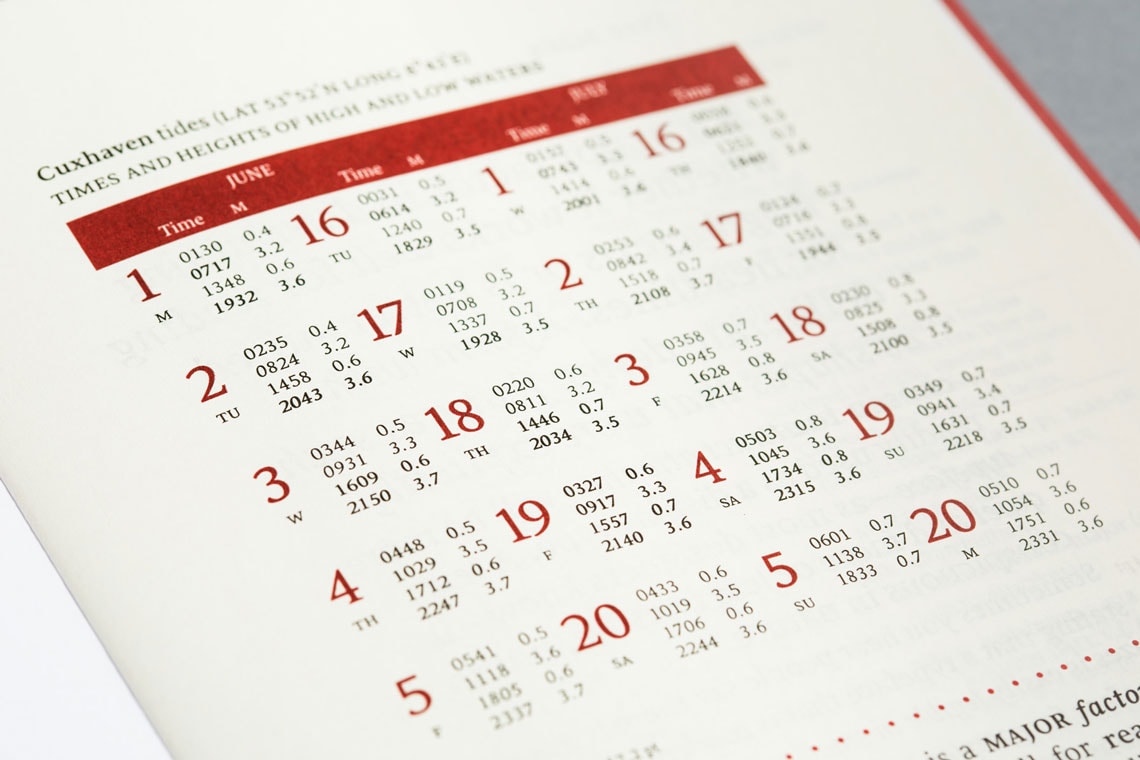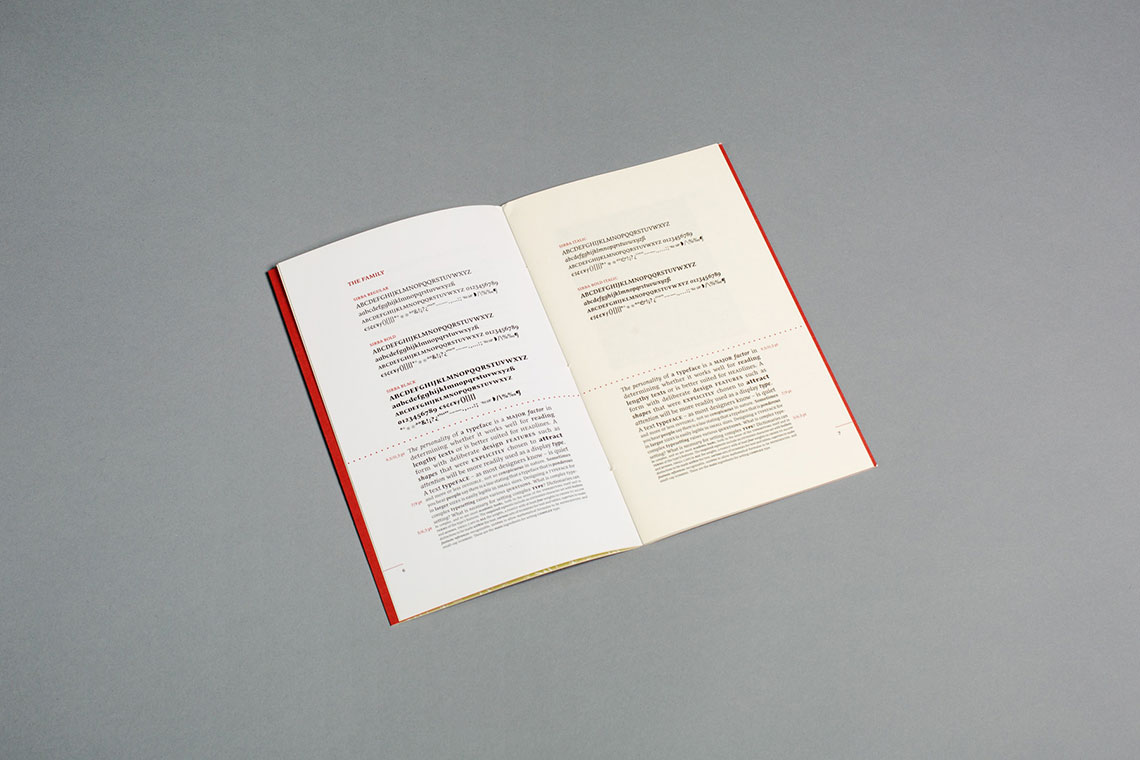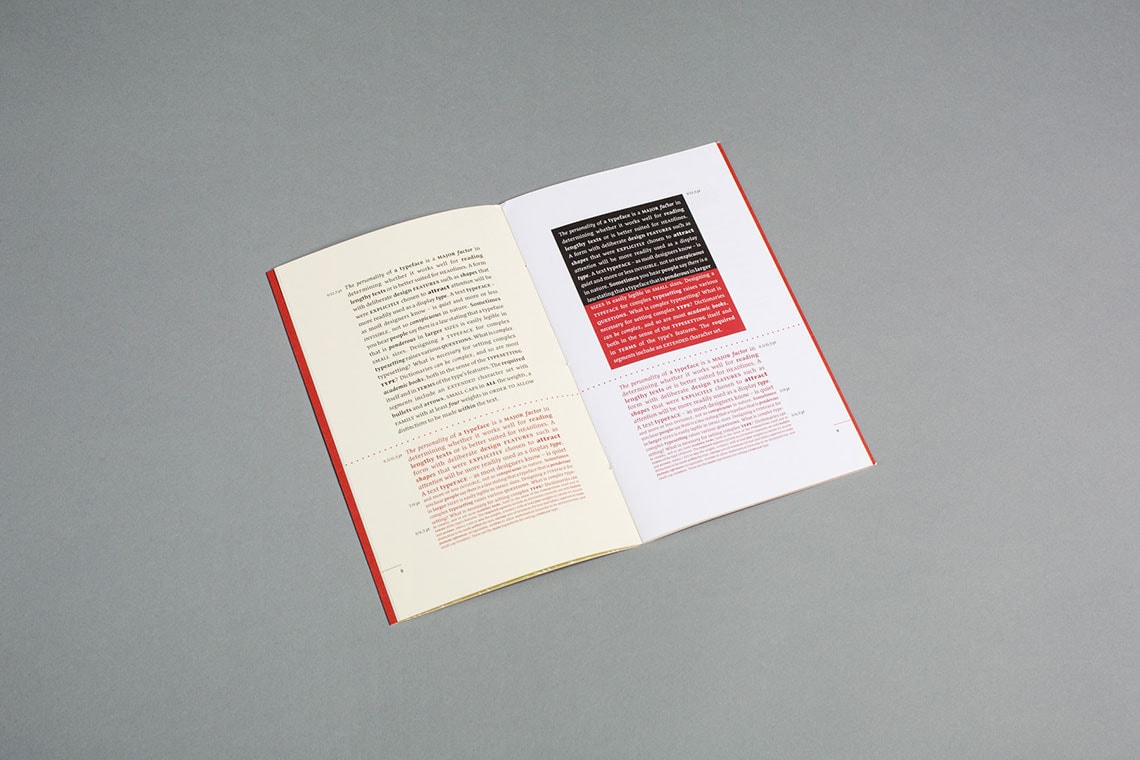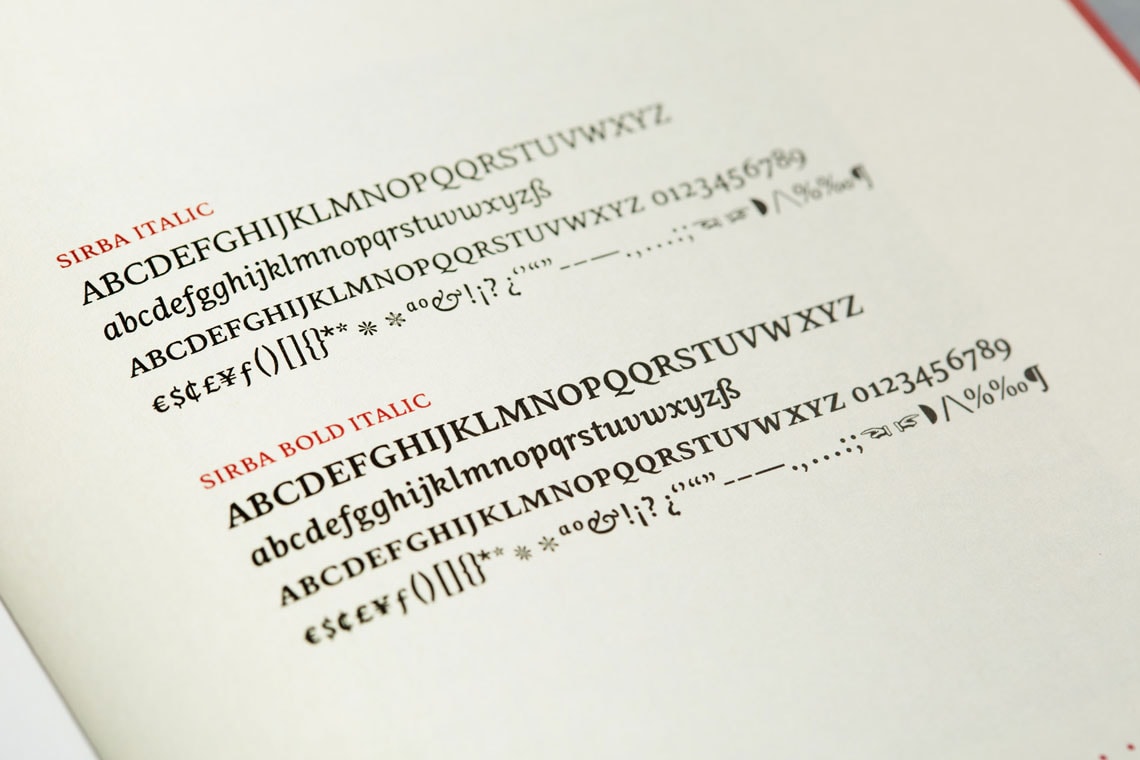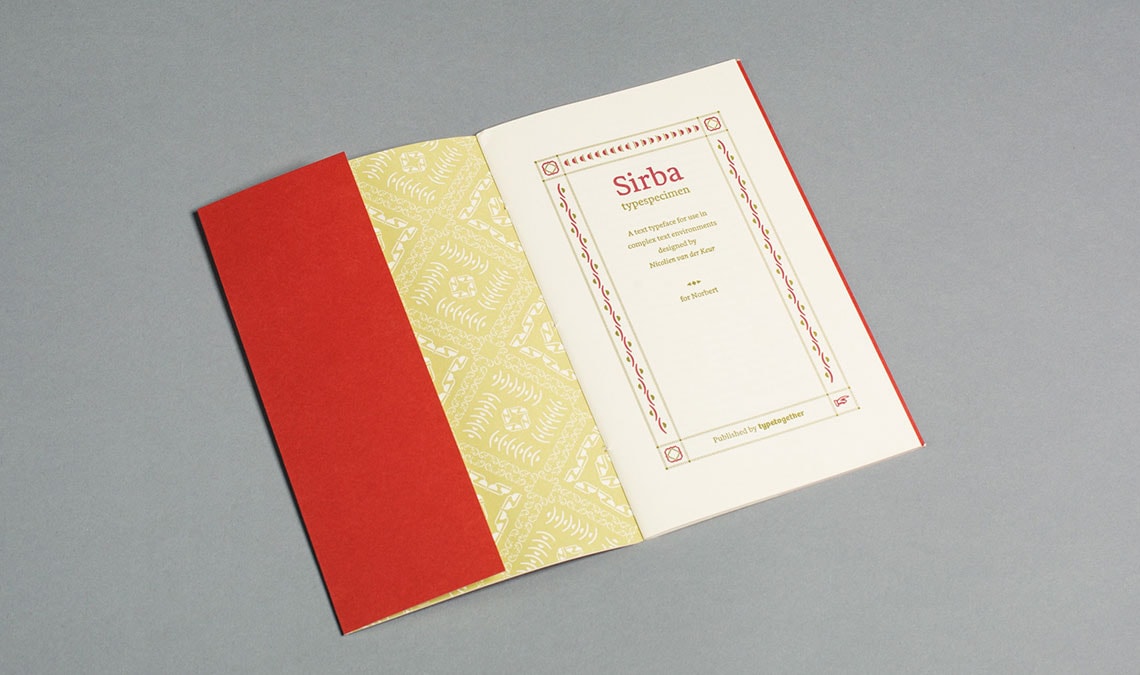
Sirba type specimen
This collectors piece is a very useful tool to see Sirba perform on many different papers, uncoated, white and off-white and type sizes. The stylish type-specimen shows the full character set, Opentype features and some examples of use. A great quality of Sirba is that the typeface remains very legible and readable on the different kinds of paper even in very small sizes such as 5 pt.
This booklet was designed and produced by Nicolien Van der Keur, original designer of Sirba. The 24-page specimen has been partially printed in letterpress and has an embossed cover. There are only 525 copies of this collector’s item.
Some technical notes
Number of pages: 24
Printing process:
pp.1–4 and 21–24 printed in letterpress usgin a Glöckner Mercedes cilinderpress; pp.5–20 printed in Offset on a Heidelberg Speedmaster 52
Quantity: 525 copies
Cover paper: Bioset 200 gsm
Interior paper: pp.1–4 & 21–24: Munkenprint cream 1.5 (115gsm); pp.5, 6, 19 & 20 Maine gloss green (135 gsm); pp.7, 8, 17 & 18 Munkenprint cream 1.5 (115 gsm); pp.9, 10, 15 & 16 Amber Graphic (120 gsm);  pp.11–14 Bioset (80 gsm)